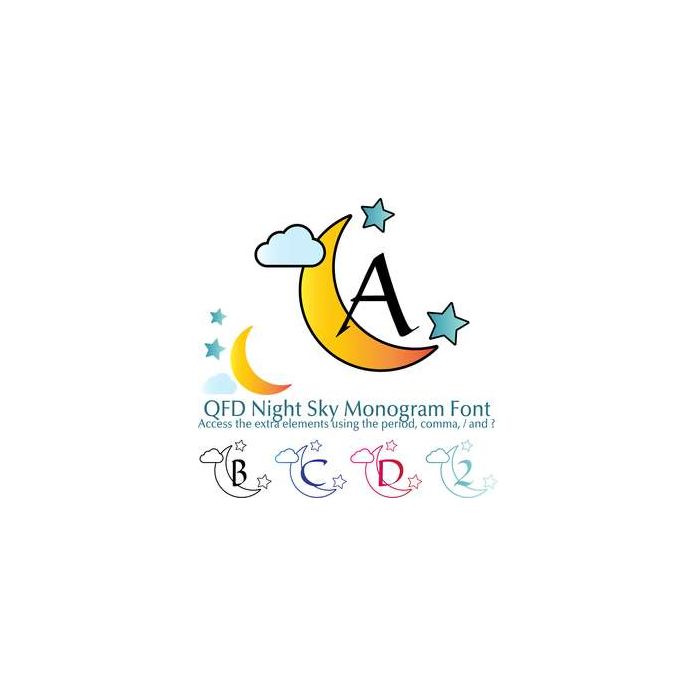
Perfect for gift tags, cards, pillows, invitations, wall art, t-shirts, mugs and anything else you can think of. Use the period, comma, / and ? to access the extra elements which you can colour and use as underlays.